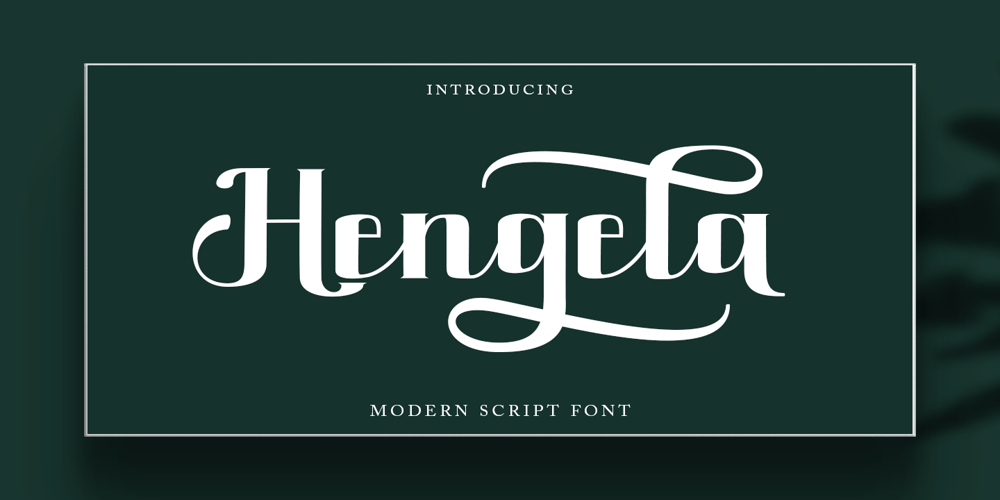
Hengela Script
Hengela Script font
Hengela Script Font Family was designed by Has Rizal and published by Hrz Studio. Hengela Script contains 1 styles and family package options. Hengela – is a modern script calligraphic typeface with some alternate bonds and strokes.This font is created in a modern style with a start and end that is very beautiful, elegant, very casual and will suit many of your design needs Perfect for logos, branding, titles, social media posts, advertisements, product packaging, product designs, labels, photography, signs water, special events, magazines, web design, etc.